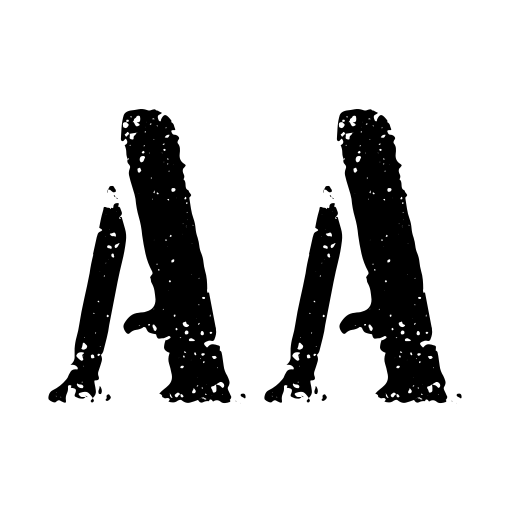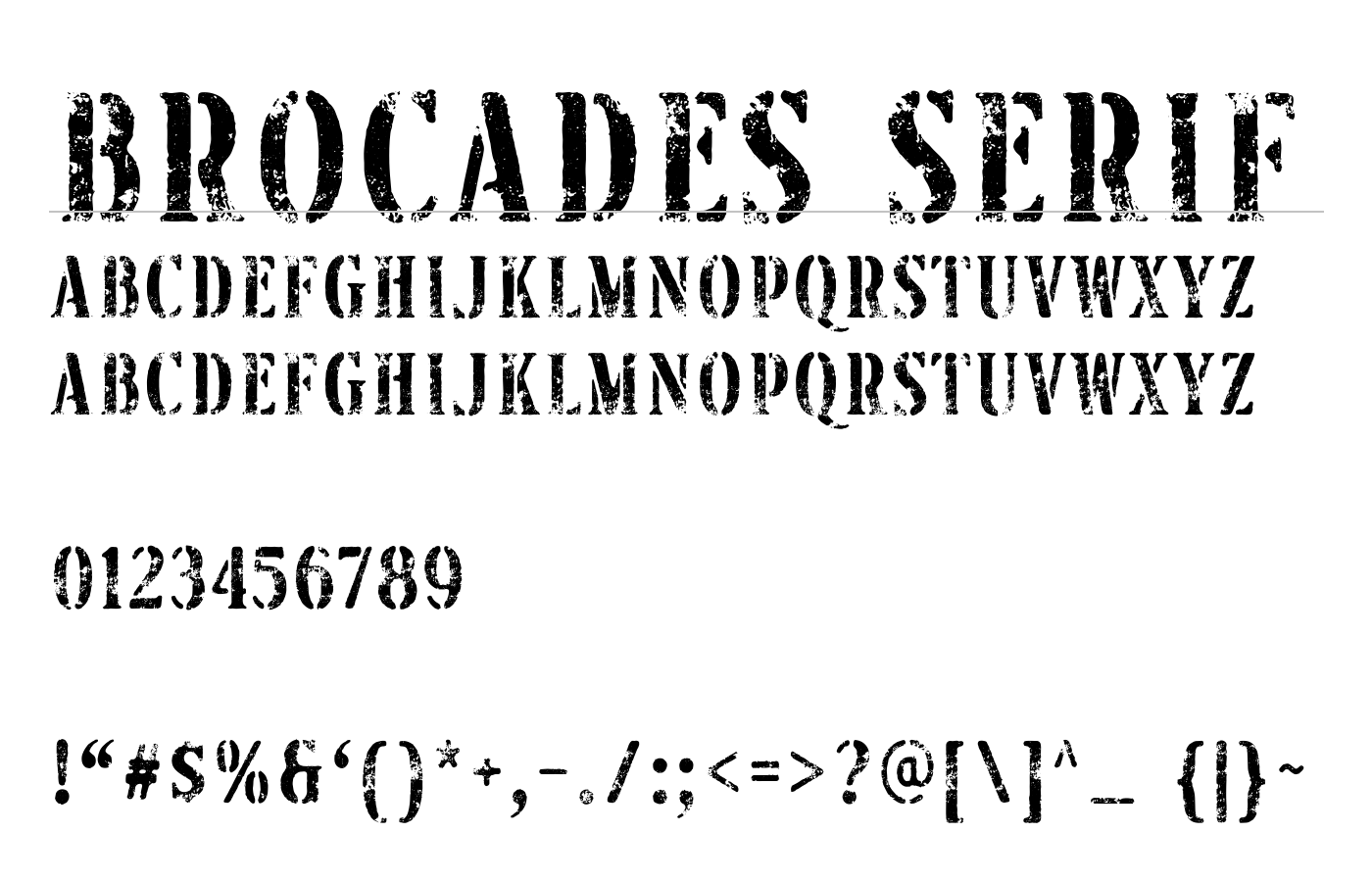
Brocades Serif is a bold, distressed serif font with a vintage, industrial feel that evokes a rugged, worn texture. Its strong, condensed letterforms with bracketed serifs and high contrast strokes make it ideal for impactful headlines, logos, and designs that seek a gritty, old-fashioned character. This font works well in branding, posters, and editorial projects that want to convey strength, authenticity, and a handcrafted vibe.
Brocades Serif Font
About Brocades Serif Font
| Font family | Brocades Serif Font |
| Designer | Edi Gunawan |